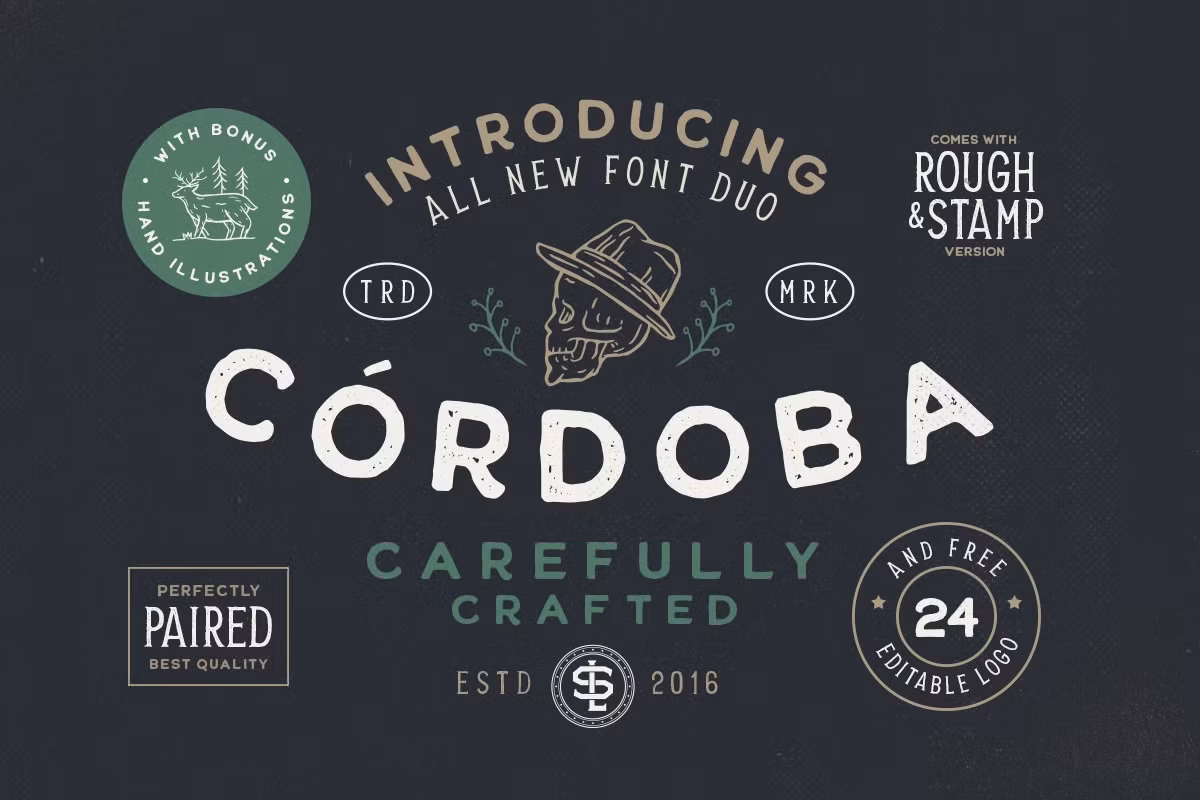
Cordoba Font Duo Free Download is an organic typeface pairing that brings natural vibes to your design projects. This duo includes both Sans and Serif fonts, each available in Rough and Stamp styles, offering versatility for various creative applications.
Designed by Letterhend Studio, Cordoba is suitable for branding logos, hand lettering, apparel designs, and more. The package also includes 24 premade logotypes and handmade illustrations, enhancing its utility for designers seeking a comprehensive toolkit.